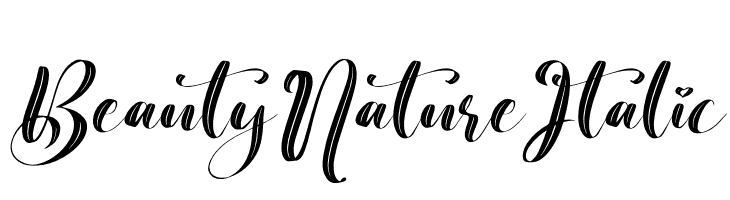
An elegant script font with flowing, connected strokes and a sophisticated style.
An elegant script font with intricate swashes and a handwritten feel.
An elegant, flowing script font with a dynamic, italic style.
A decorative, cursive font with bold, sweeping strokes and elegant flourishes.
A decorative script font with elegant loops and high contrast strokes.
An elegant, flowing script font with intricate swirls and high contrast.
A graceful and sophisticated script font with flowing, interconnected characters.
An elegant, cursive font with flowing, intricate strokes.
A modern, elegant script font with a flowing, italic style.
A bold, expressive script font with dynamic strokes and elegant swirls.